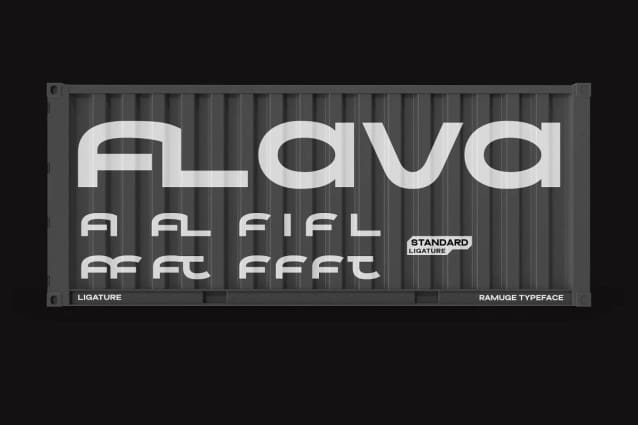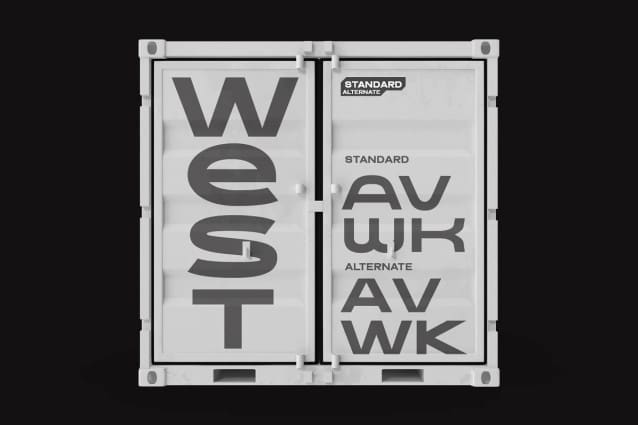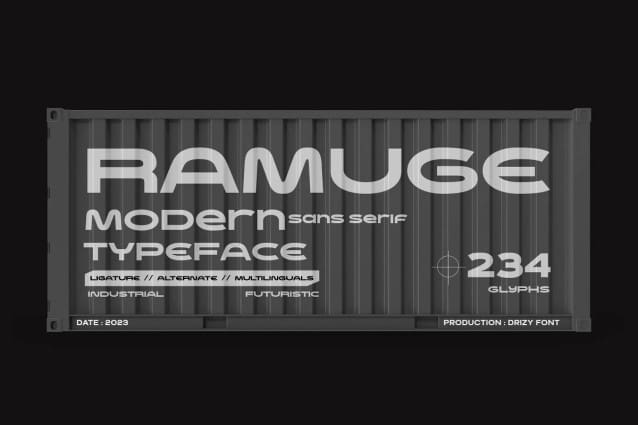
Ramuge Font
Ramuge Font is an industrial futuristic font that seamlessly merges cutting-edge aesthetics with a robust, mechanical undertone. This typeface embodies the essence of the future, where precision meets innovation in the industrial realm.
Ramuge features: Uppercase & Lowercase Punctuation & Numbers Multilingual Support Alternates Ligatures Do not hesitate to contact us if you have any questions about this font. Hope you like it and enjoy it!